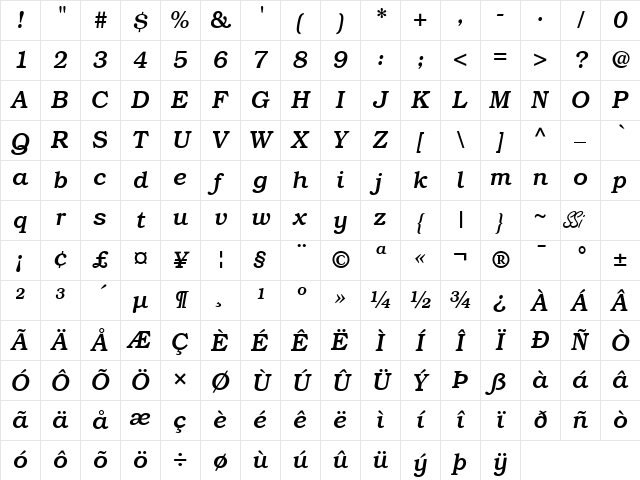
Bookman SSi is a composed and adaptable typeface that performs quietly and consistently across a wide range of design contexts. The slanted form adds forward momentum and visual energy.
Pro Tip: Use Bookman SSi for emphasis, pull quotes, and subheadings where its slanted energy can add rhythm to the layout.